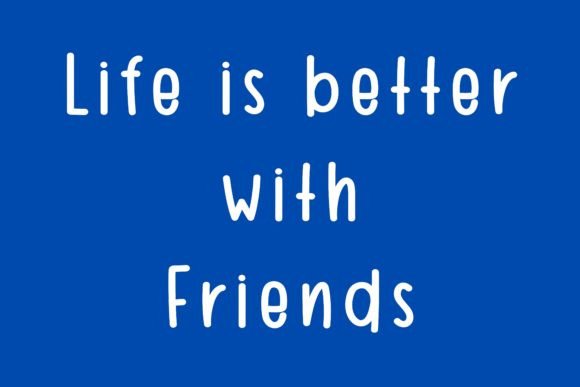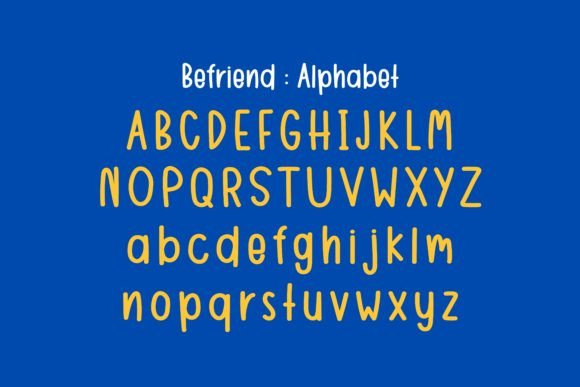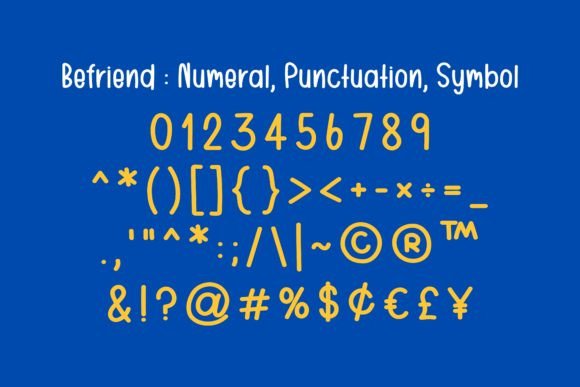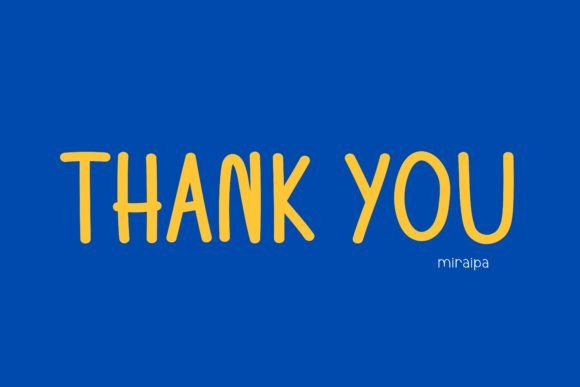
Befriend Font: The Ultimate Handwritten Sans Serif Font for Friendly Designs
Are you looking for a font that can add a touch of warmth and friendliness to your designs? Look no further than the Befriend Font! Designed in a cute and friendly handwritten sans serif font style, Befriend is perfect for a wide range of projects, from back to school and wedding decorations to party invitations and social media posts.
What Makes Befriend Font So Special?
Befriend Font is a unique and versatile font that is sure to bring a smile to anyone’s face. Its handwritten sans serif style gives it a personal and approachable feel, making it perfect for designs that require a friendly touch. Whether you’re creating a DIY project, designing a poster, or crafting a greeting card, Befriend Font is sure to add a touch of warmth and personality to your work.
So, what can you use Befriend Font for? The possibilities are endless! Here are just a few ideas to get you started:
- Back to School: Create eye-catching posters, invitations, and decorations for the new school year with Befriend Font.
- Weddings: Add a touch of romance and whimsy to your wedding stationery, decorations, and signage with Befriend Font.
- Party Decorations: Create custom invitations, banners, and decorations for birthday parties, baby showers, and other celebrations with Befriend Font.
- Fall, Halloween, and Christmas: Get into the holiday spirit with Befriend Font’s playful and festive style, perfect for creating seasonal decorations, invitations, and cards.
- Posters and Blogs: Add a friendly touch to your posters, blogs, and social media posts with Befriend Font’s clean and approachable design.
- Clothing and Child-Related Designs: Create adorable designs for kids’ clothing, nursery decor, and child-related products with Befriend Font’s cute and playful style.
- Greeting Cards and Social Media Posts: Send warm and personalized greetings with Befriend Font’s friendly and approachable design, perfect for social media posts, greeting cards, and more.
Why Choose Befriend Font?
So, why should you choose Befriend Font for your next project? Here are just a few reasons:
- Unique and Versatile: Befriend Font is a one-of-a-kind font that can be used for a wide range of projects, from formal to informal designs.
- Easy to Read: Befriend Font’s clean and simple design makes it easy to read, even at small sizes.
- Customizable: Befriend Font can be customized to fit your project’s specific needs, from adjusting the font size to adding your own personal touch.
- Friendly and Approachable: Befriend Font’s handwritten sans serif style gives it a friendly and approachable feel, perfect for designs that require a personal touch.